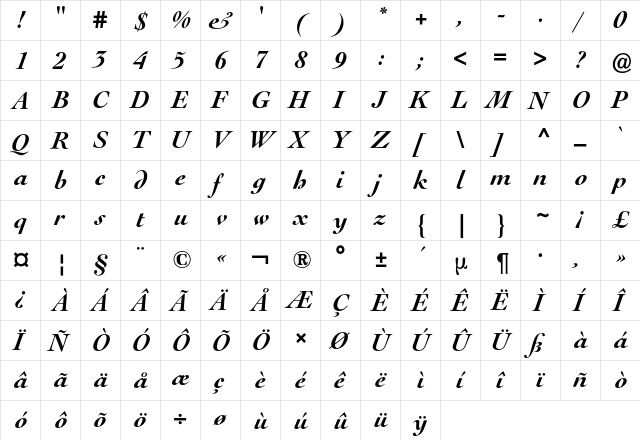
Le Cochin BQ Regular Font Preview
Le Cochin BQ Regular
Design Context for Le Cochin BQ Typeface
Le Cochin BQ takes a measured approach to typography — its balanced proportions and neutral character make it a reliable workhorse for both digital and print work.